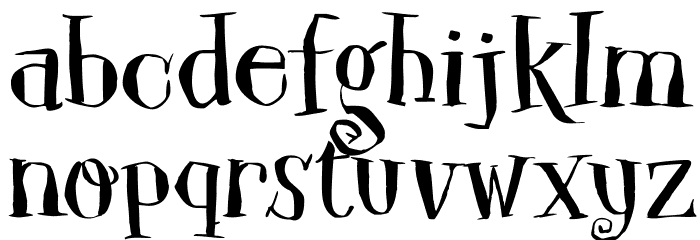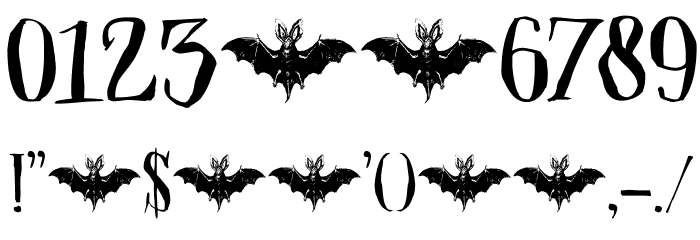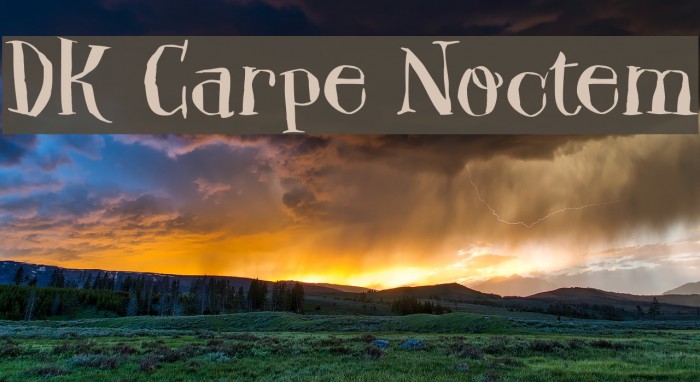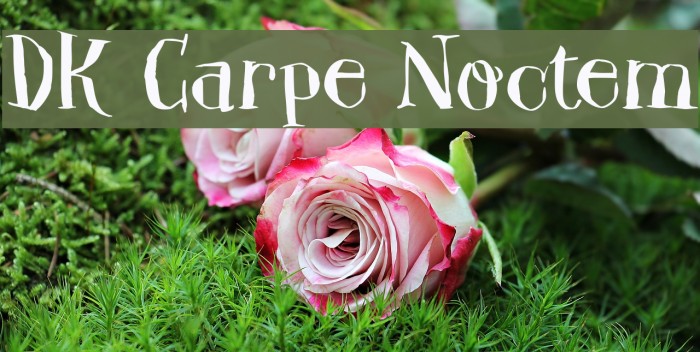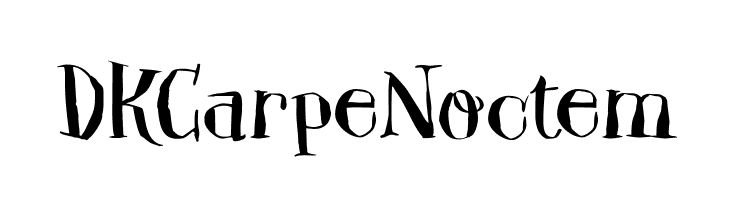
DK Carpe Noctem Font
This font features a whimsical and gothic style, characterized by its playful yet eerie design. The uppercase letters are tall and slightly irregular, with some characters incorporating unique flourishes, such as curls and spikes, enhancing its mysterious and enchanting appearance. The lowercase letters maintain a consistent style, with a hand-drawn feel that adds to its charm. Numbers are bold and distinct, while special characters include creative bat motifs, adding a thematic element perfect for Halloween or fantasy projects. The overall aesthetic is both decorative and expressive, making it ideal for eye-catching designs.
A whimsical and gothic font with playful, eerie elements and unique flourishes.
- Font: DK Carpe Noctem
- Proposed Projects: Ideal for Halloween-themed designs, fantasy book covers, spooky invitations, and decorative posters.
- Overall Style: Gothic, Whimsical
- Use Case: Headlines, Logos, Decorative text